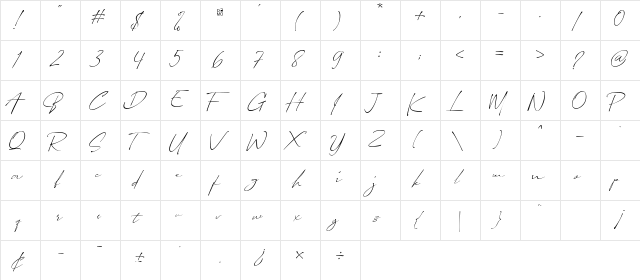
Irnafia_demo Regular
| Designer | Ketapel Creative |
Design Context for Irnafia_demo Typeface
Irnafia_demo is a composed and adaptable typeface that performs quietly and consistently across a wide range of design contexts.